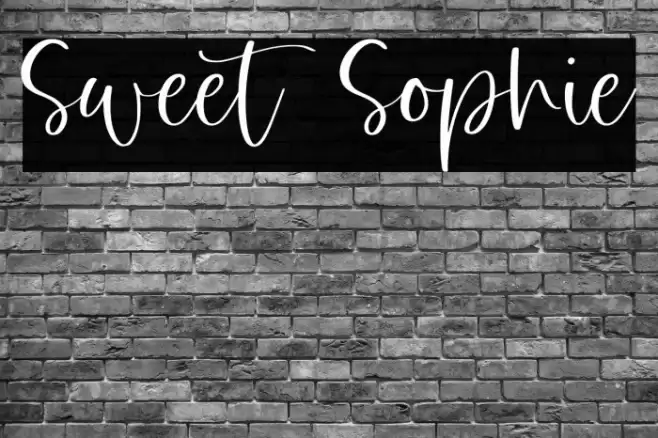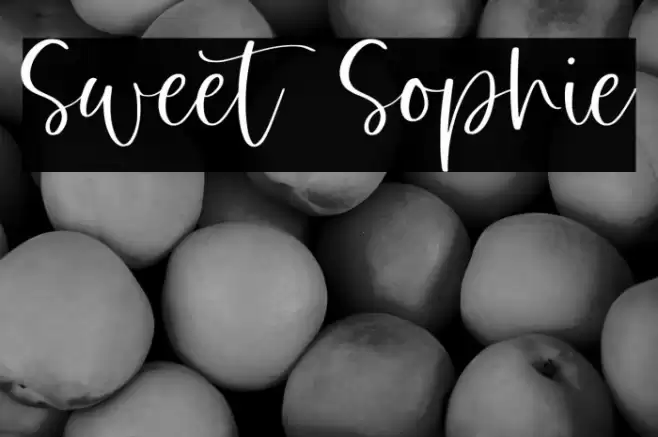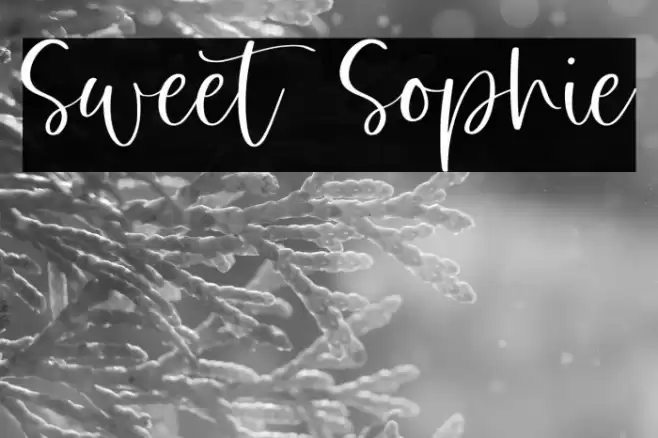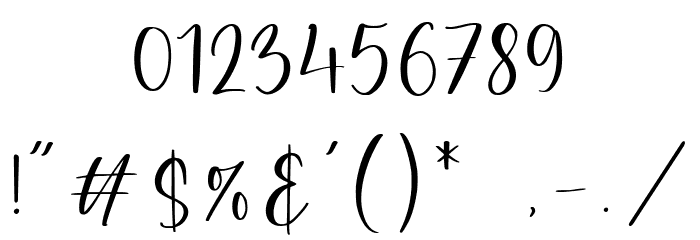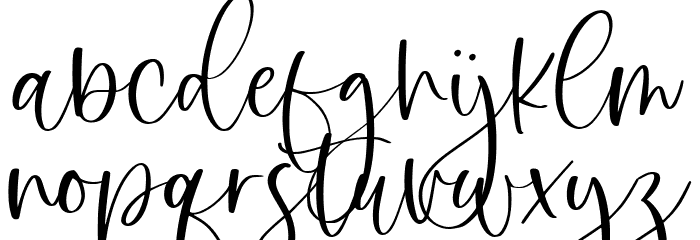
Sweet Sophie Font
Sweet Sophie Description
This font features a playful and elegant handwritten style, characterized by its flowing, cursive script. The letters are connected in a fluid manner, giving it a natural and organic feel. The uppercase letters are bold and slightly elongated, while the lowercase letters exhibit a charming, whimsical quality with varied stroke thickness. The numbers maintain the same playful aesthetic, making them easily readable yet stylish. Special characters are crafted with the same attention to detail, ensuring consistency throughout the font. This font is perfect for adding a personal touch to any design project.
A playful, elegant handwritten script with fluid, cursive strokes from Uncategorized fonts.
- Proposed Projects: Ideal for wedding invitations, greeting cards, personal branding, and creative projects requiring a personal touch.
- Use Case: Logos, Invitations, Personal Branding